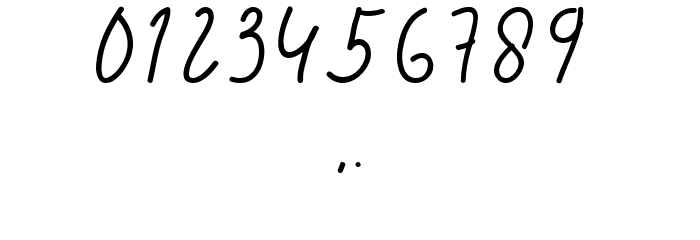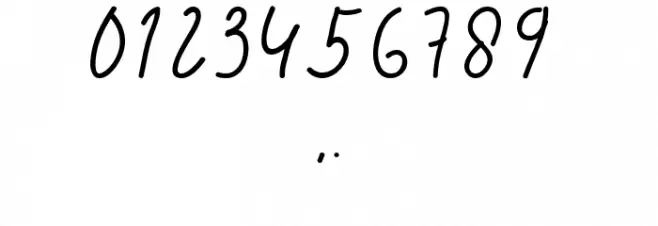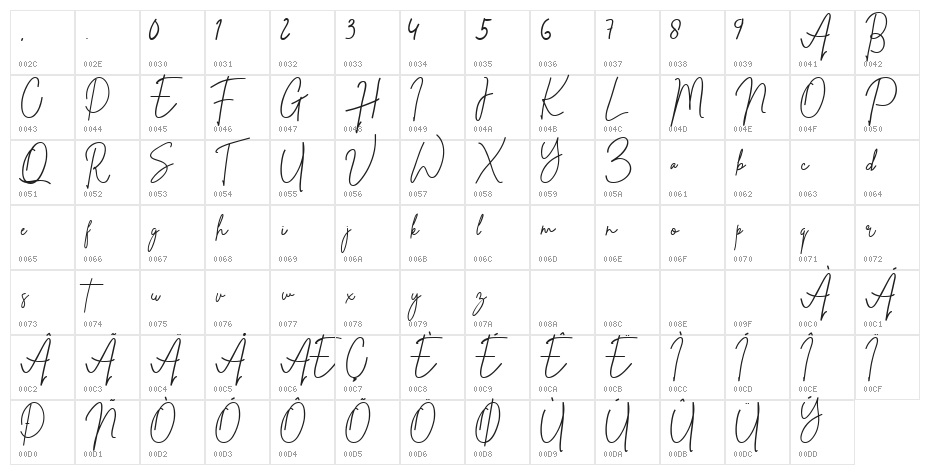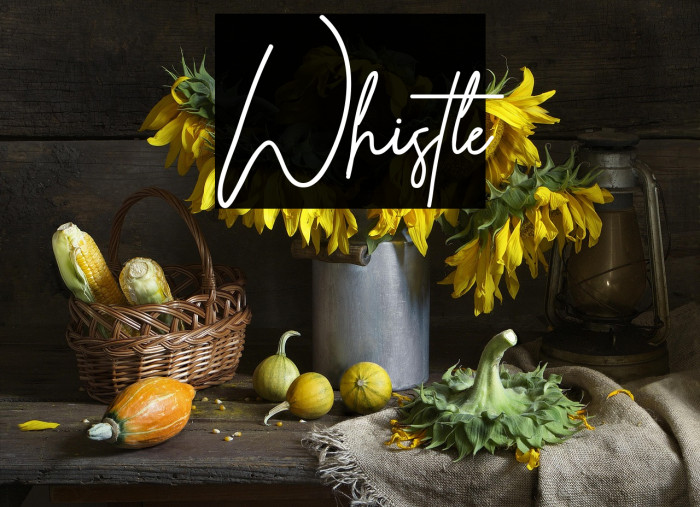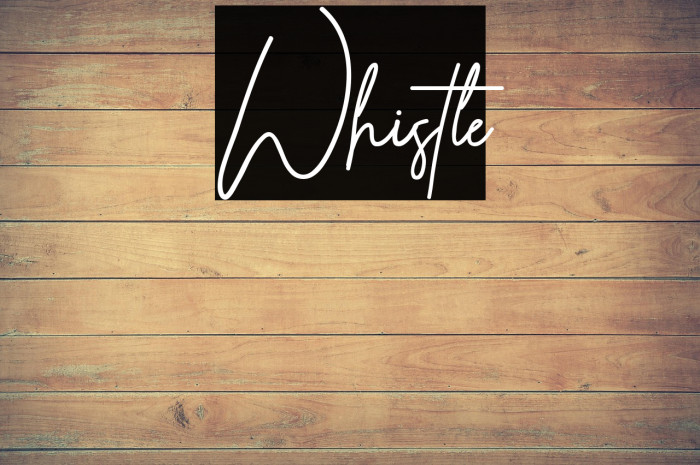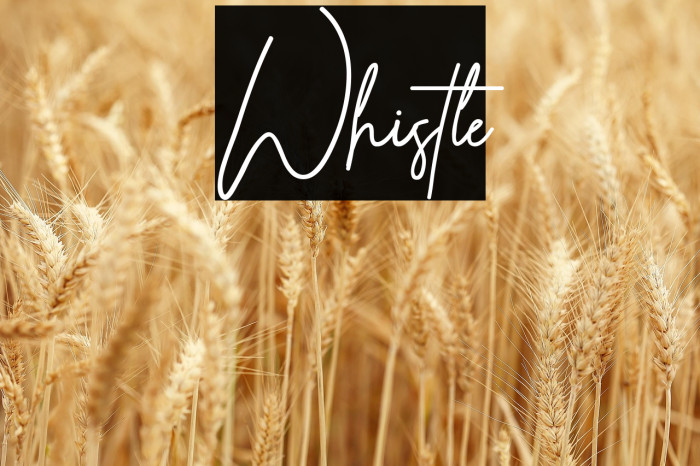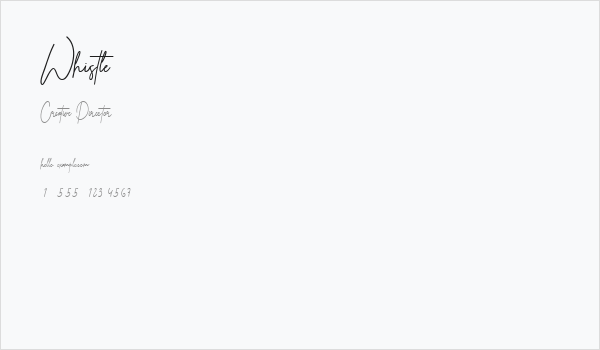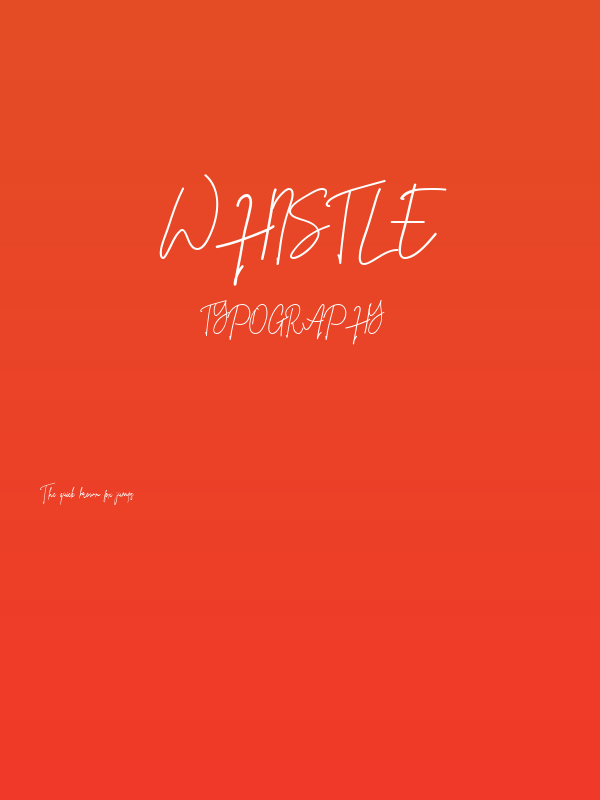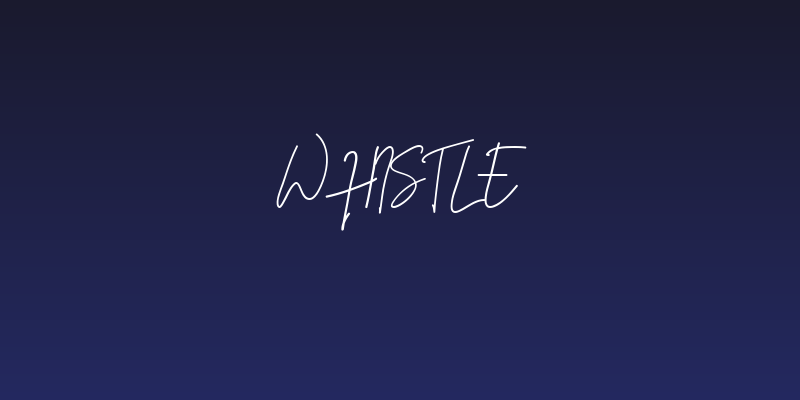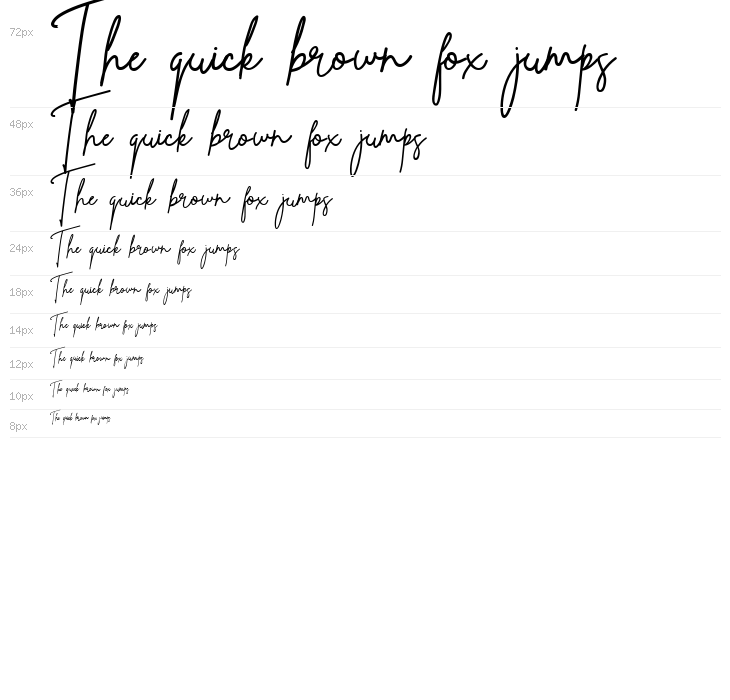
Whistle Font
Whistle Description
This font features a delicate and flowing script style that exudes elegance and sophistication. The uppercase letters are tall and slender, with graceful curves and loops that give them a sense of movement. The lowercase letters maintain a consistent flow, with smooth connections between each character, enhancing the handwritten feel. The numerals are clear and distinct, matching the overall aesthetic with their slightly elongated forms. The special characters are seamlessly integrated, maintaining the font's cohesive style. This font's thin strokes and airy design make it ideal for projects that require a touch of refinement and personal flair.
| Proposed Projects | Ideal for wedding invitations, personal branding, elegant logos, and greeting cards. |